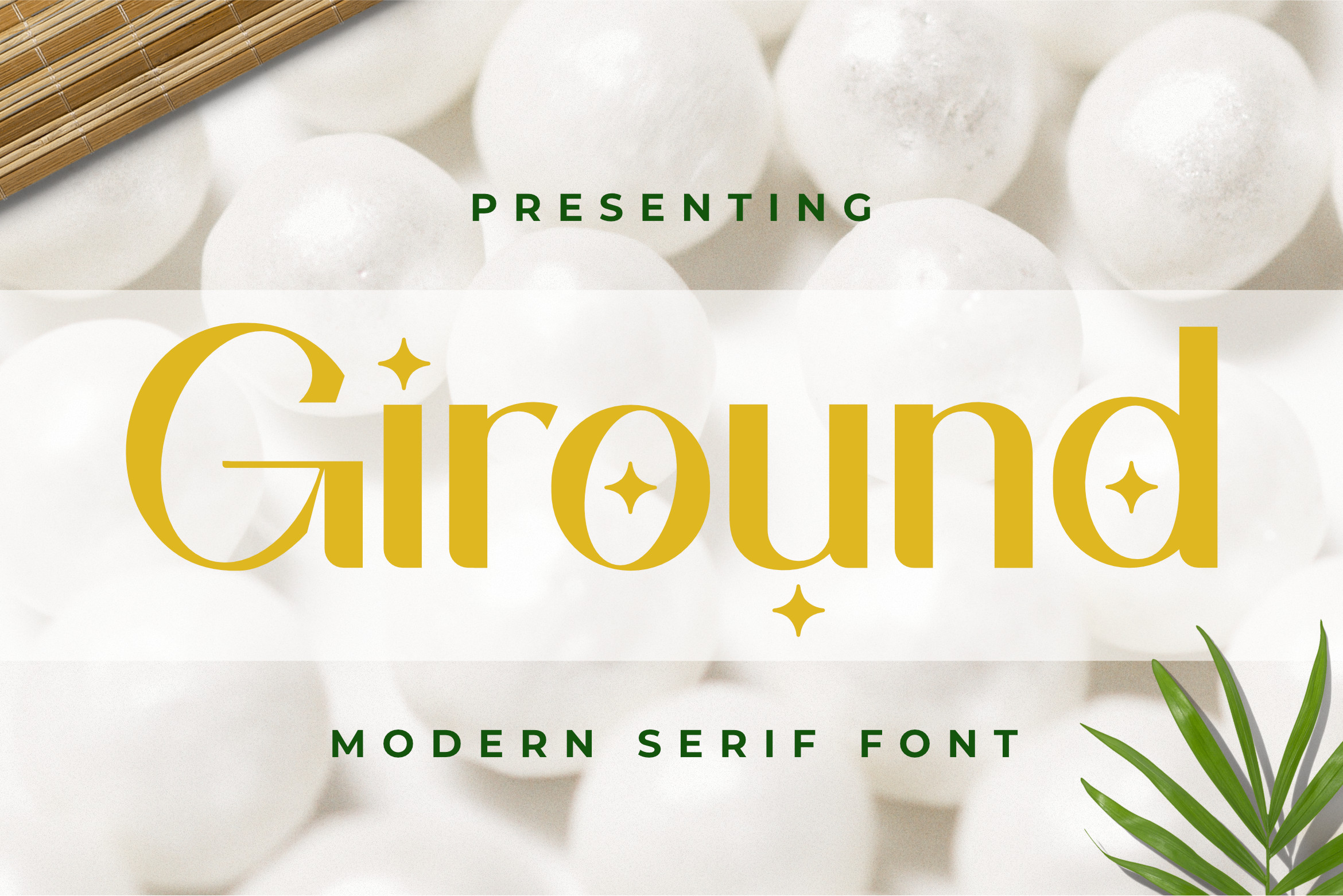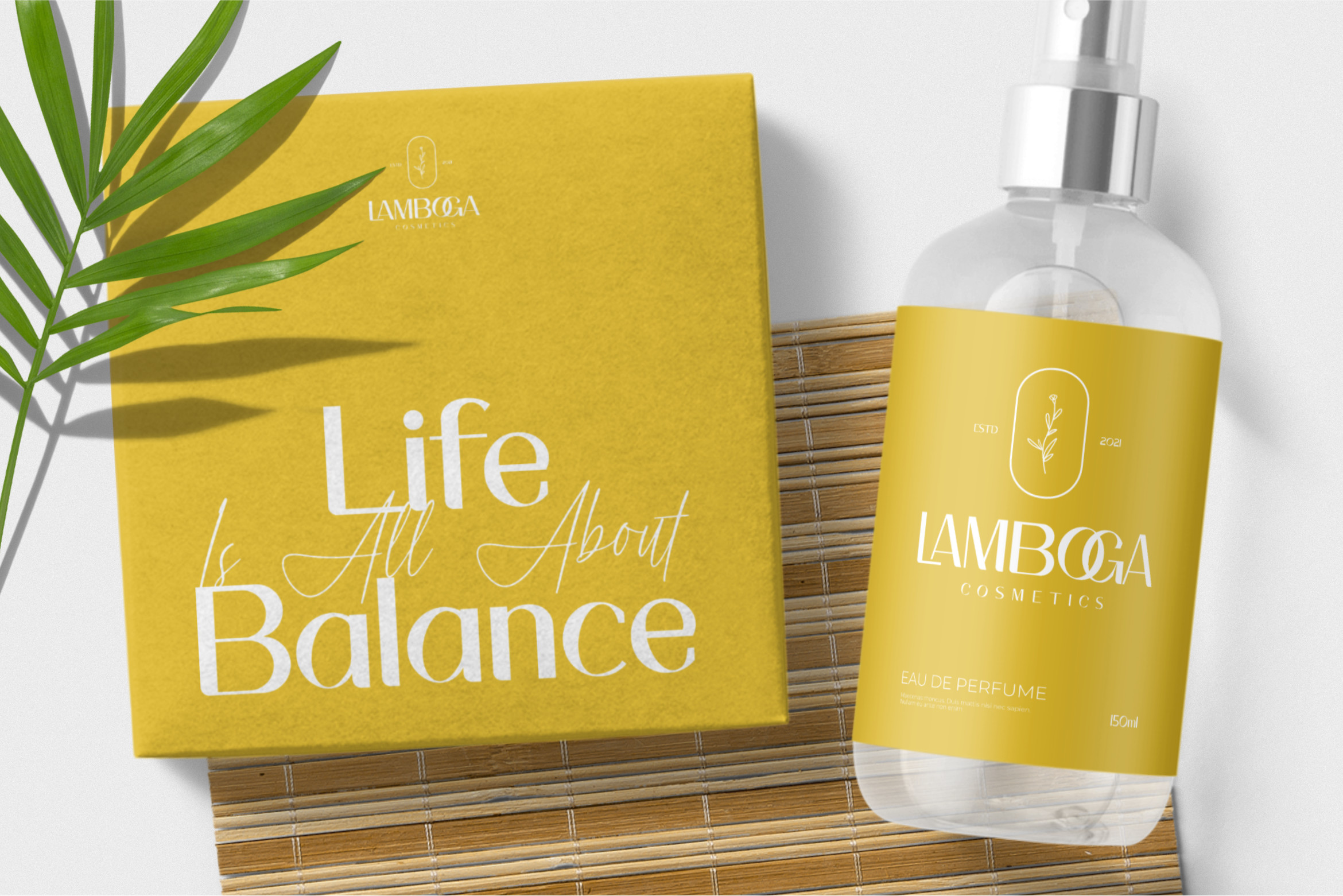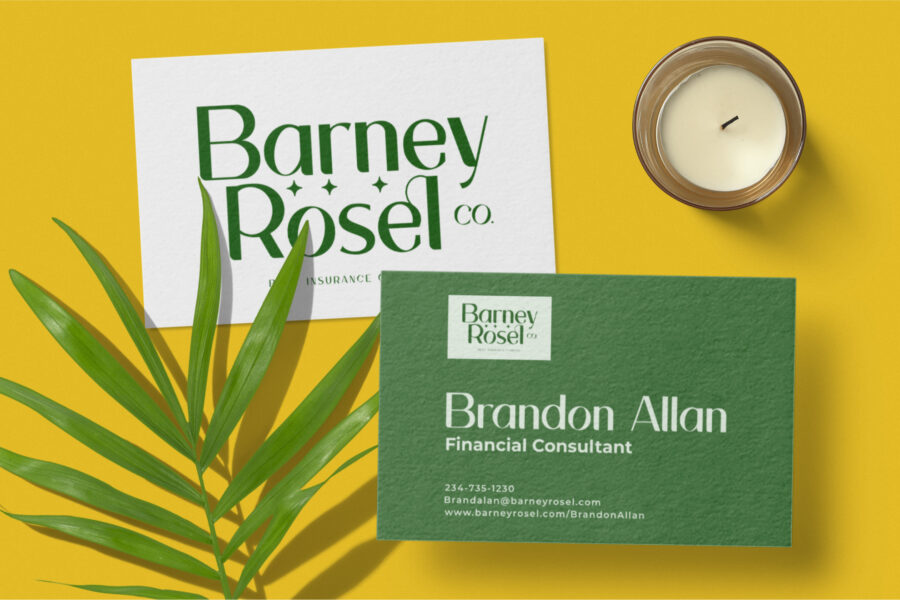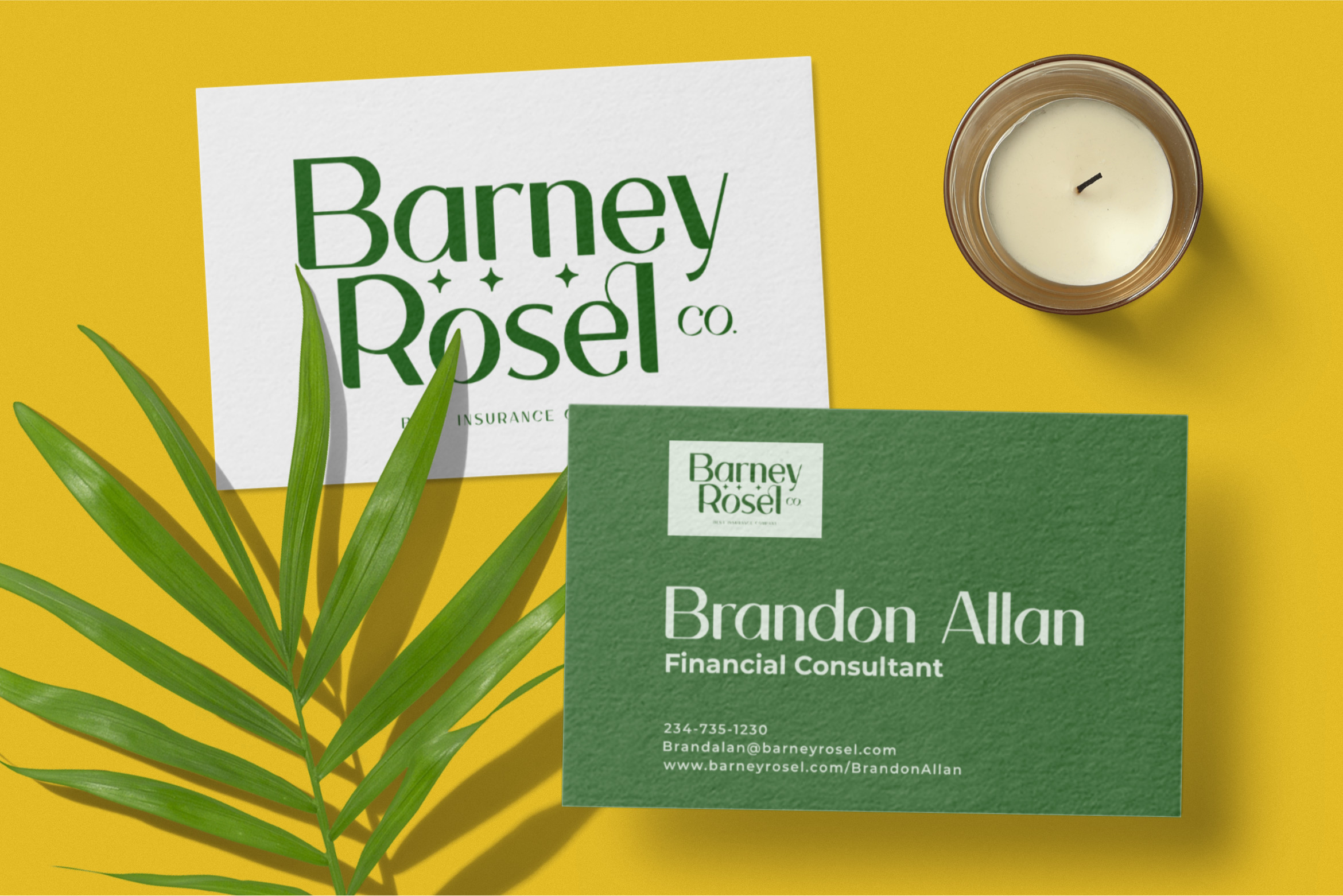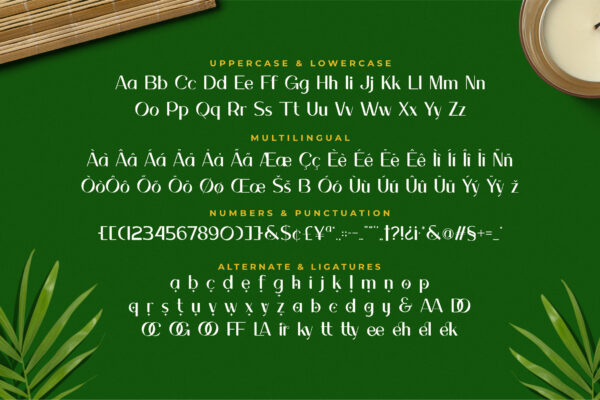
Giround is a modern serif font that blends classic elegance with a contemporary twist. With its refined curves and striking star-shaped details, this font is perfect for branding, packaging, editorial titles, and luxurious logo designs. Each character is carefully designed to bring charm and sophistication, while its clean structure ensures high readability.
This font also includes stylistic alternates and ligatures, giving designers plenty of creative freedom. Its multilingual support and complete punctuation set make it a versatile typeface for both display and body text in a wide range of design projects. Giround is ideal for those seeking a balance between timeless style and modern flair.
Giround